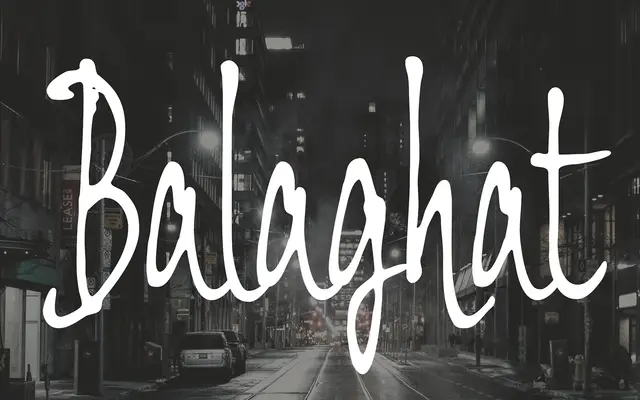
Balaghat
A flowing brush-script with smooth cursive strokes, aimed at logotypes, editorial headlines and print ephemera.
Designed to evoke the movement of hand-lettering with a natural, ink-on-paper quality, Balaghat suits high-end logotypes and magazine headlines as much as greeting cards and book covers. Its cursive rhythm keeps it versatile across print and screen contexts. The single weight keeps the offering focused, relying entirely on the character of the letterforms.
A hand-lettered flowing cursive that mimics smooth brush strokes, placing it firmly in the brush script subcategory of script typefaces.